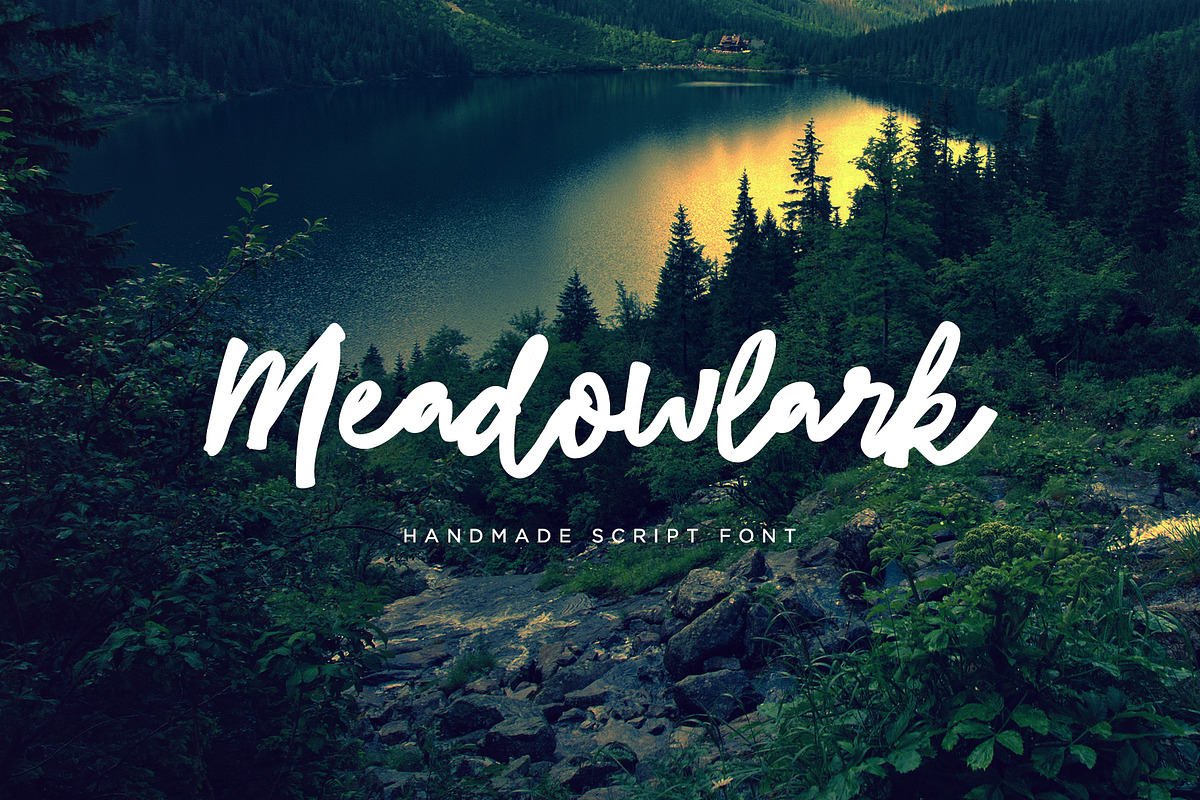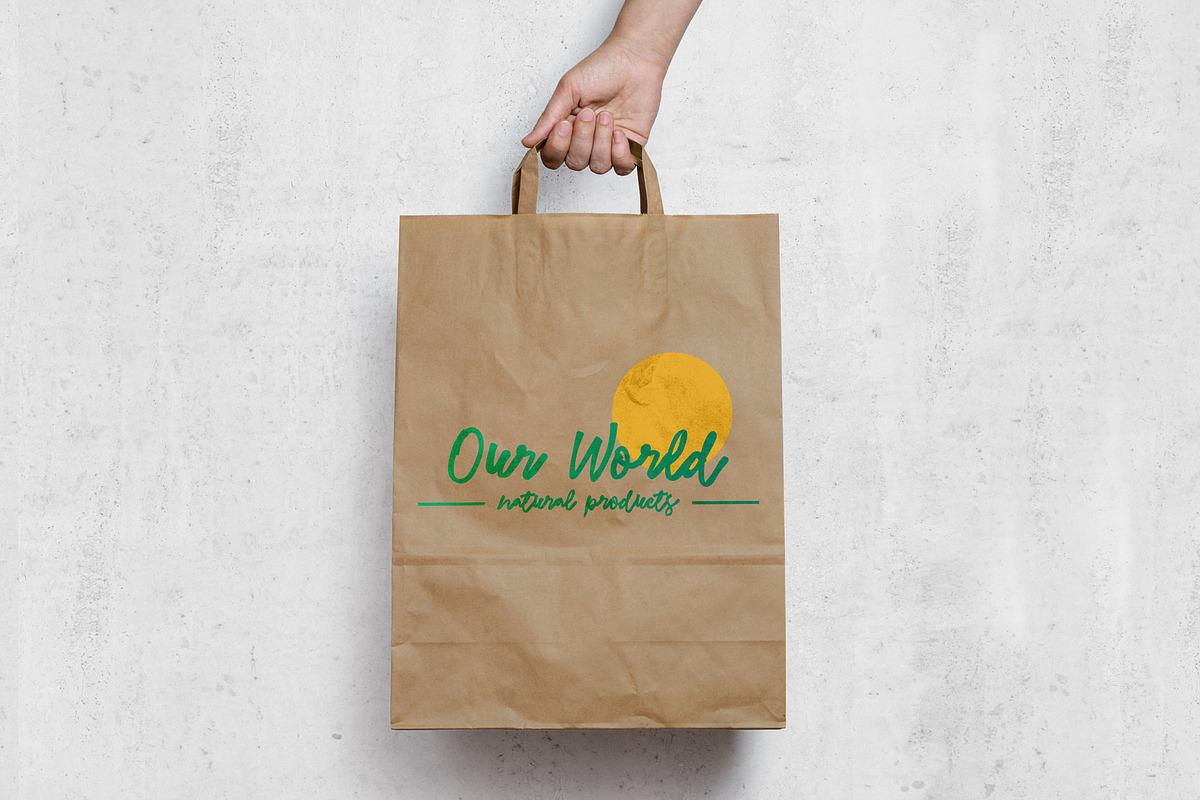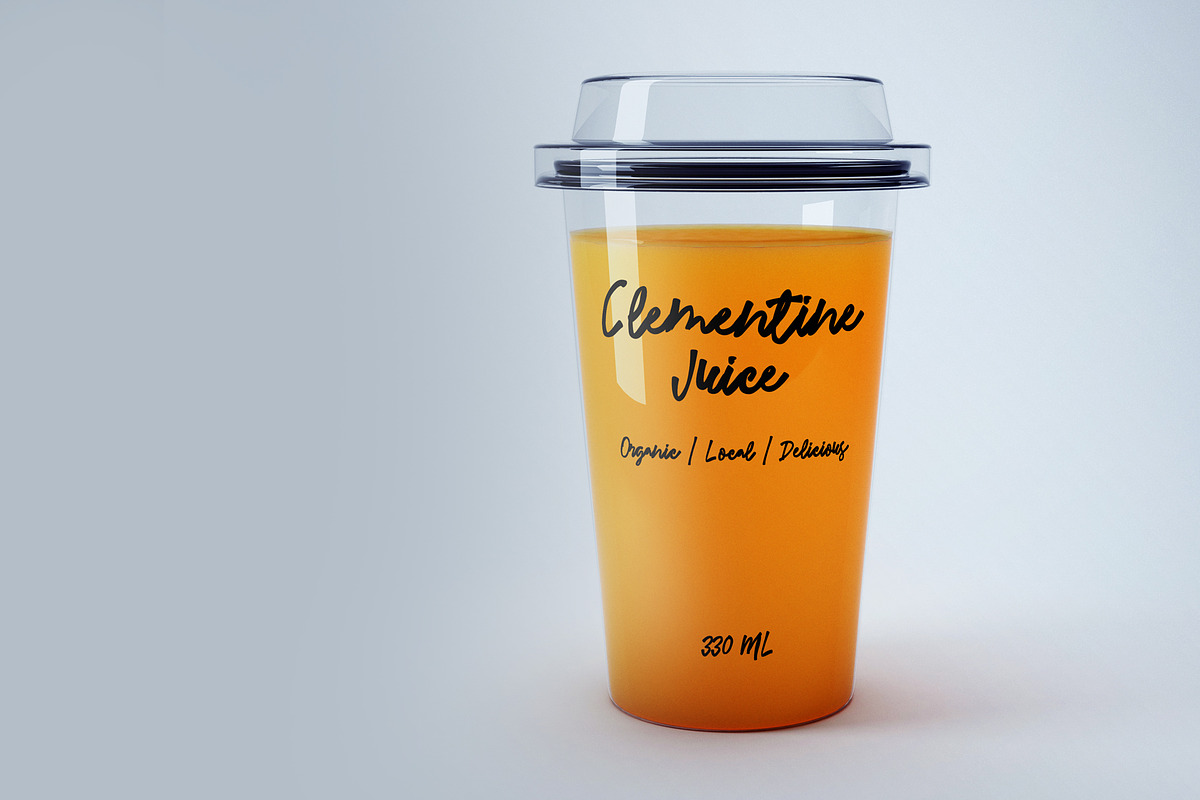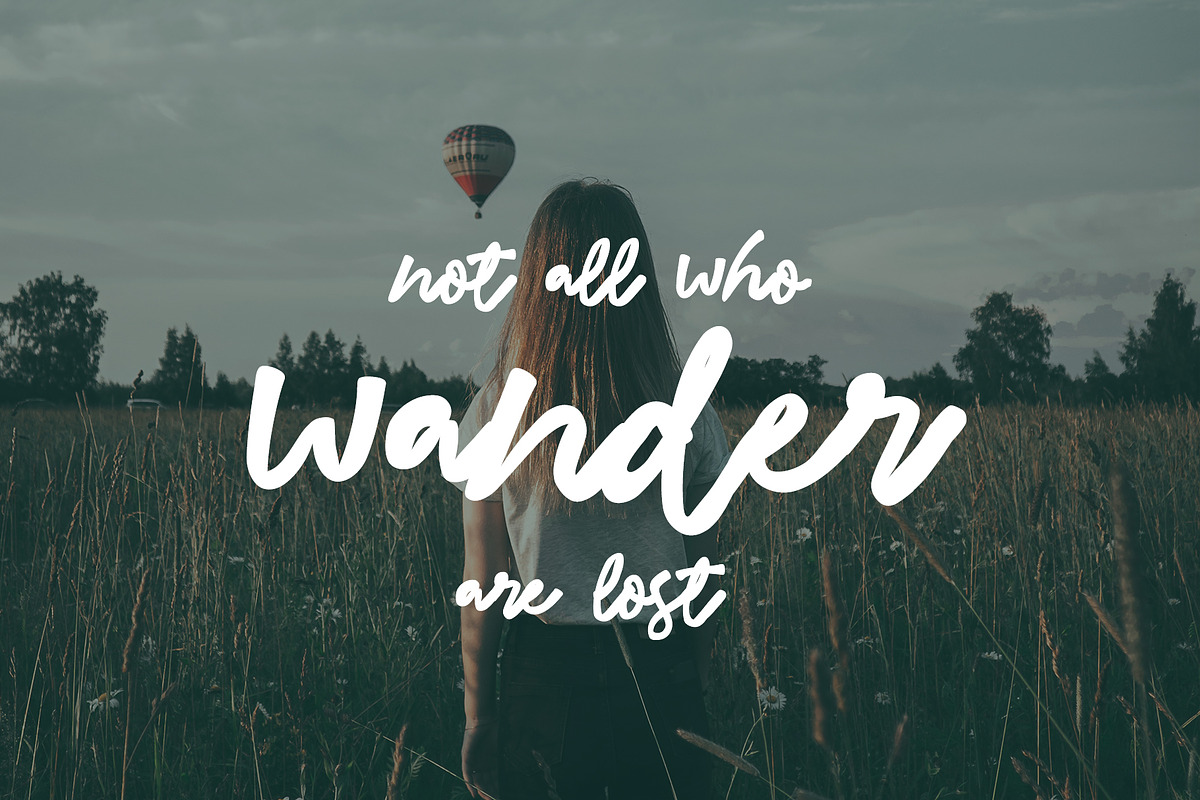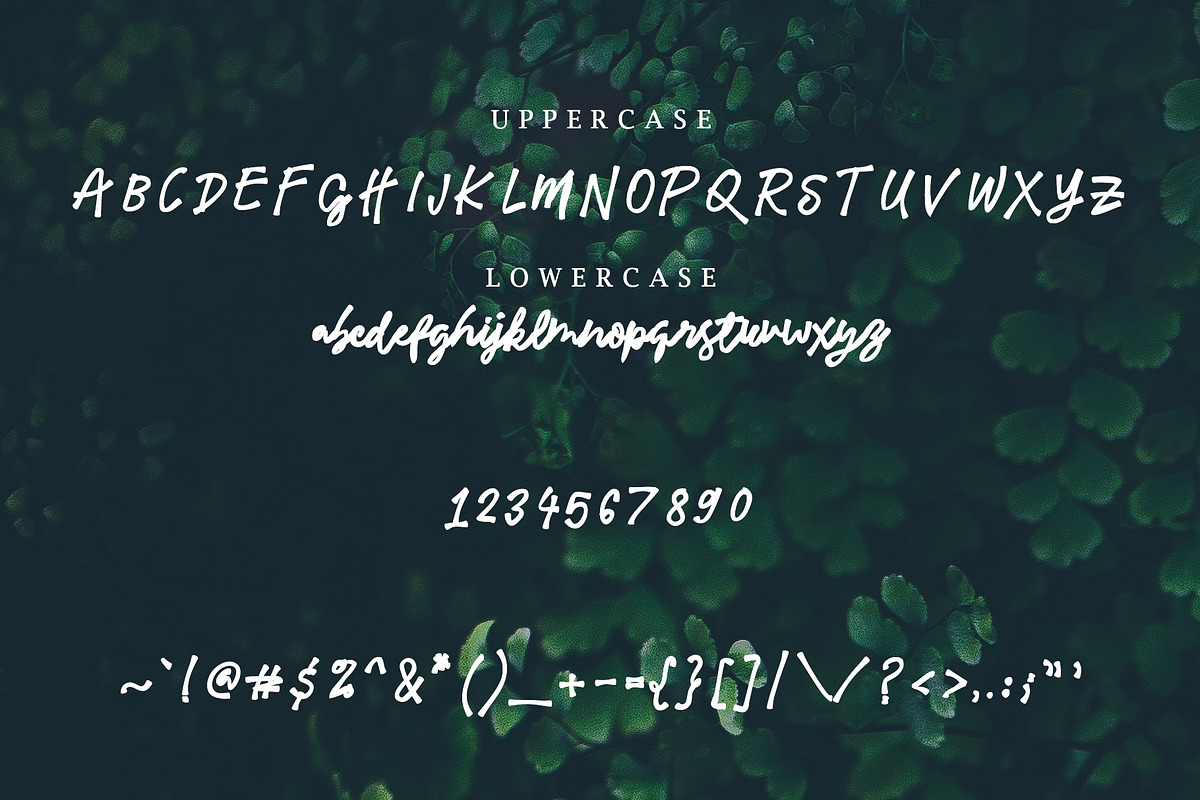
Meadowlark Script Font
Meadowlark is a hand made, handwriting script font that will give your designs a casual yet classy, personalized and airy feel.
Meadowlark Script Font by Midnight Grim fits naturally into Branding, posters, packaging, typography.